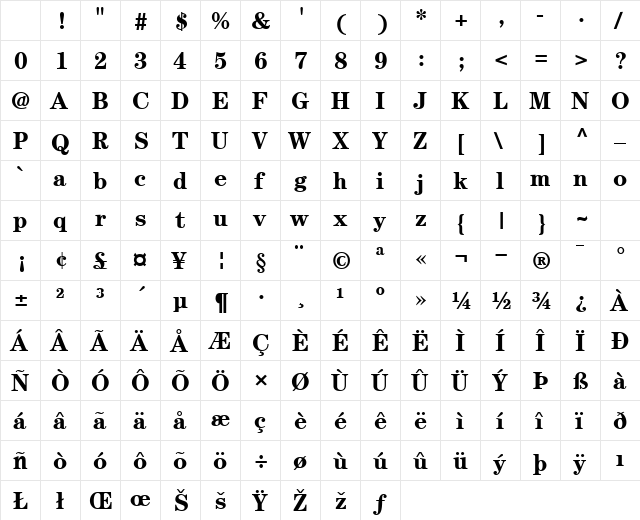
Complete OldStyle Bold glyph index. Displaying only characters natively supported by OldStyle Bold font.
OldStyle carries the refined structure of traditional serif typography, with bracketed terminals and considered proportions that communicate credibility and craft. Its bold stroke weight gives it real presence on the page.
Pro Tip: Use OldStyle for editorial body copy and considered headline work. Pair with a neutral sans for UI elements or captions to create a classic hierarchy.